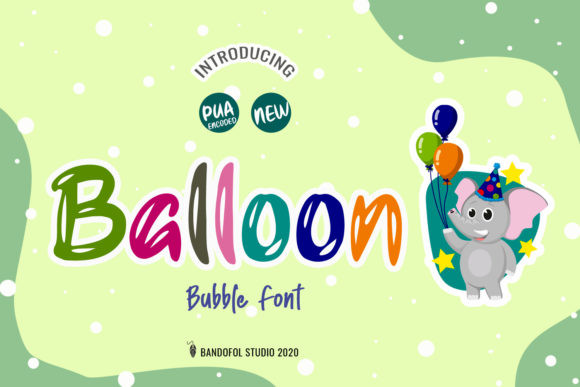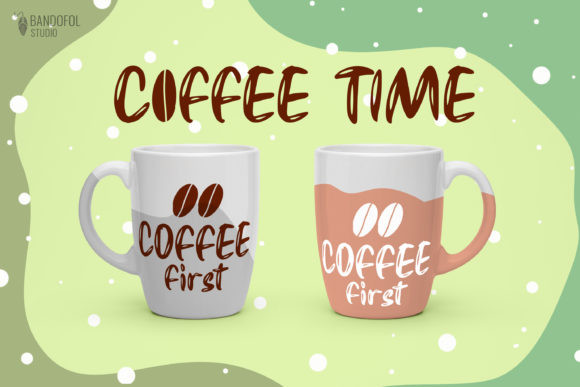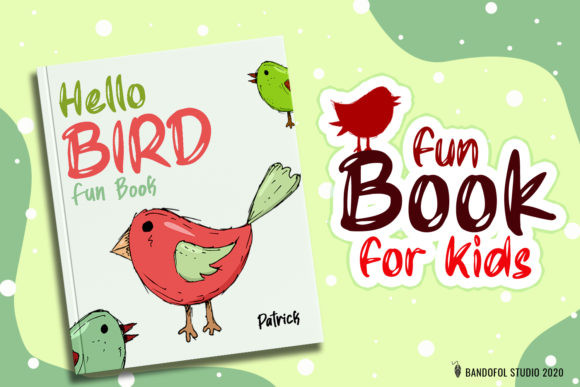
Balloon Font
Balloon is a cartoon like and playful display font. This font is perfect for children themed designs, especially when combined with bright colors.